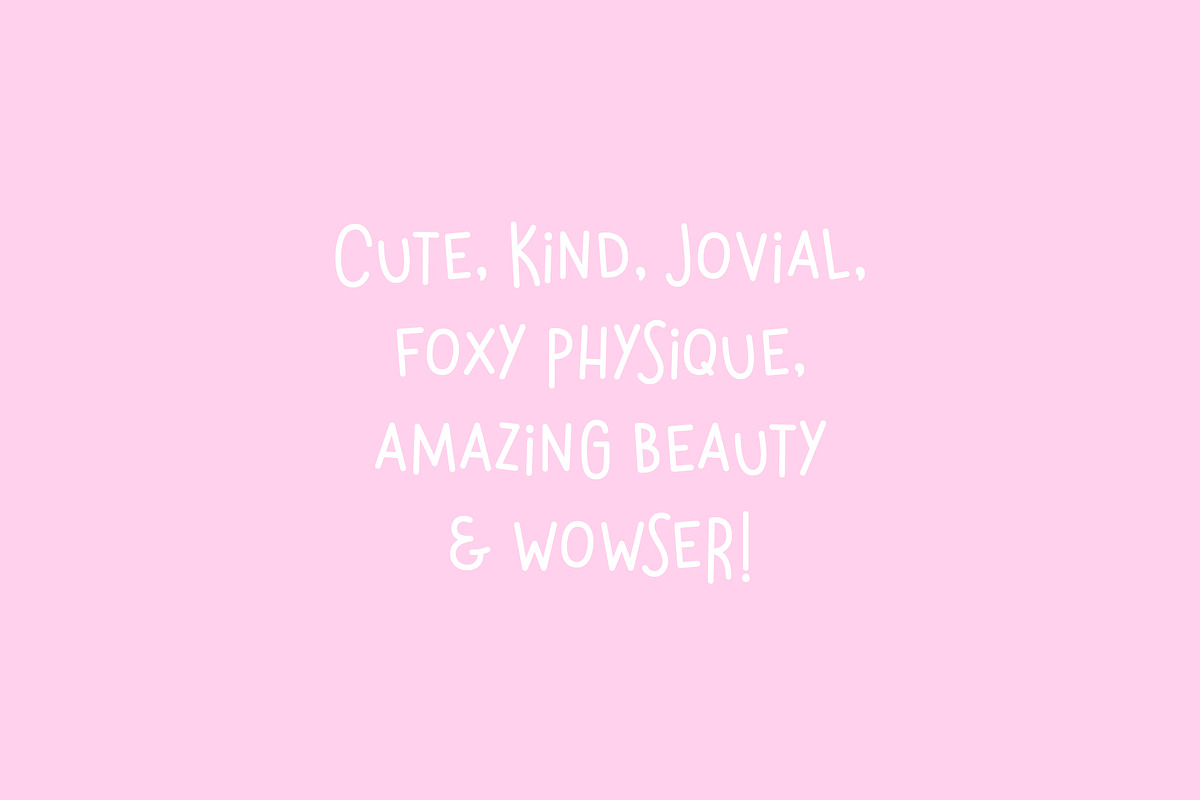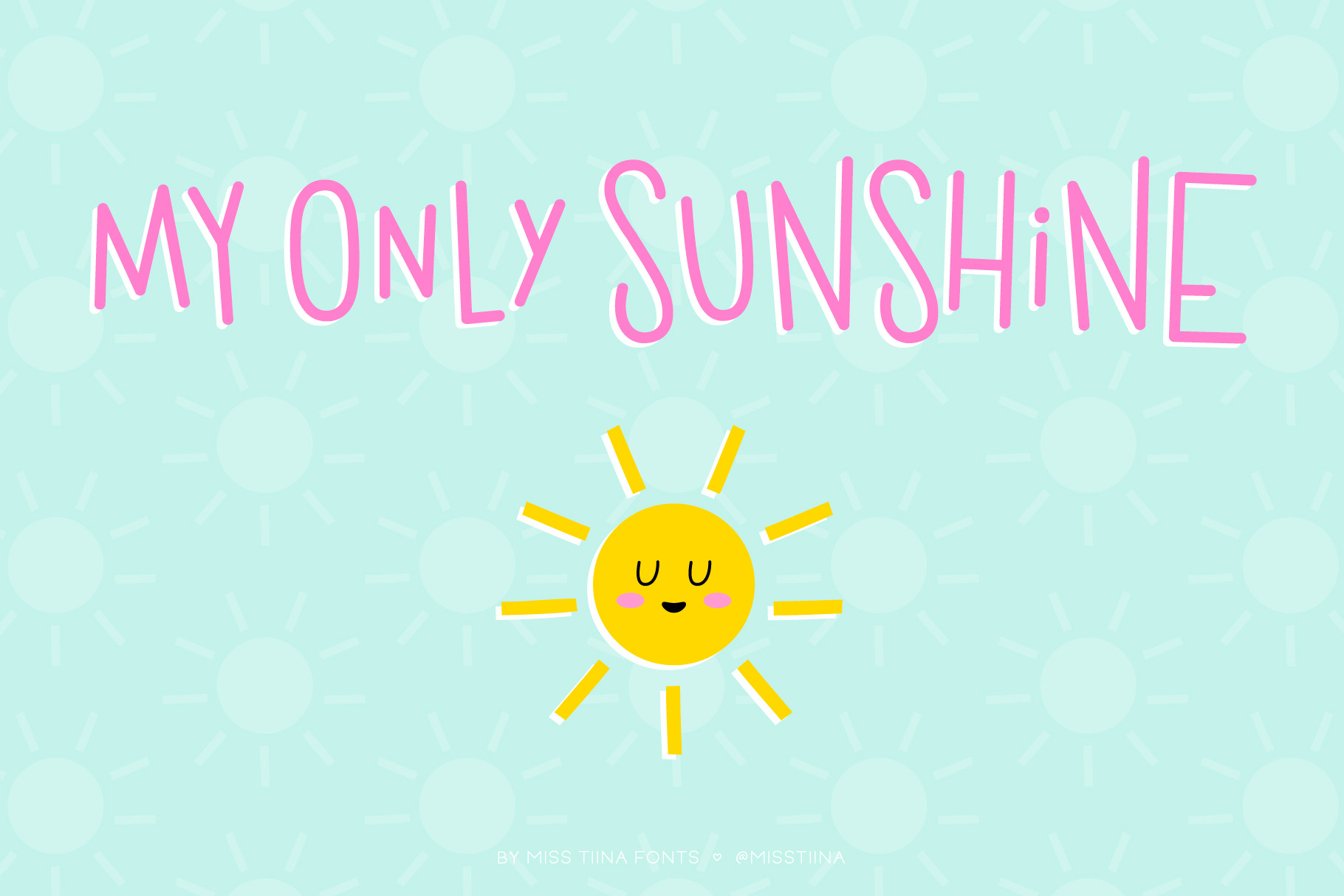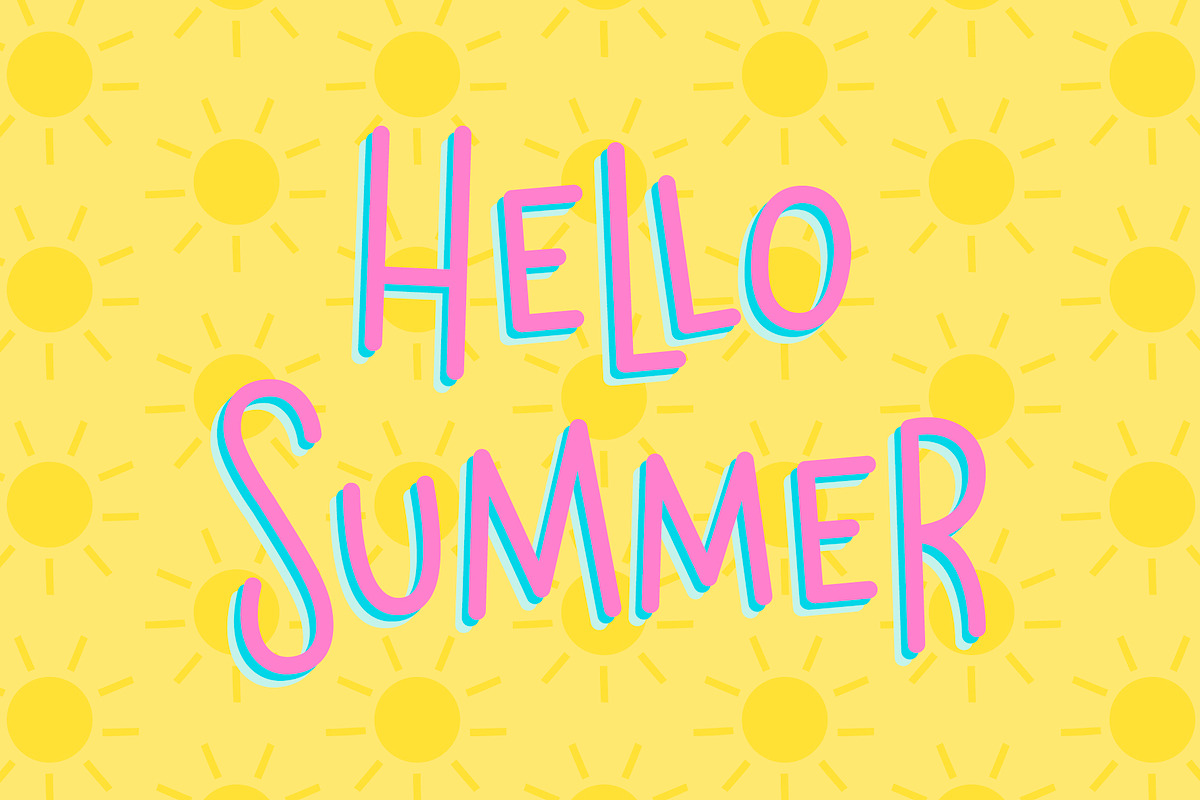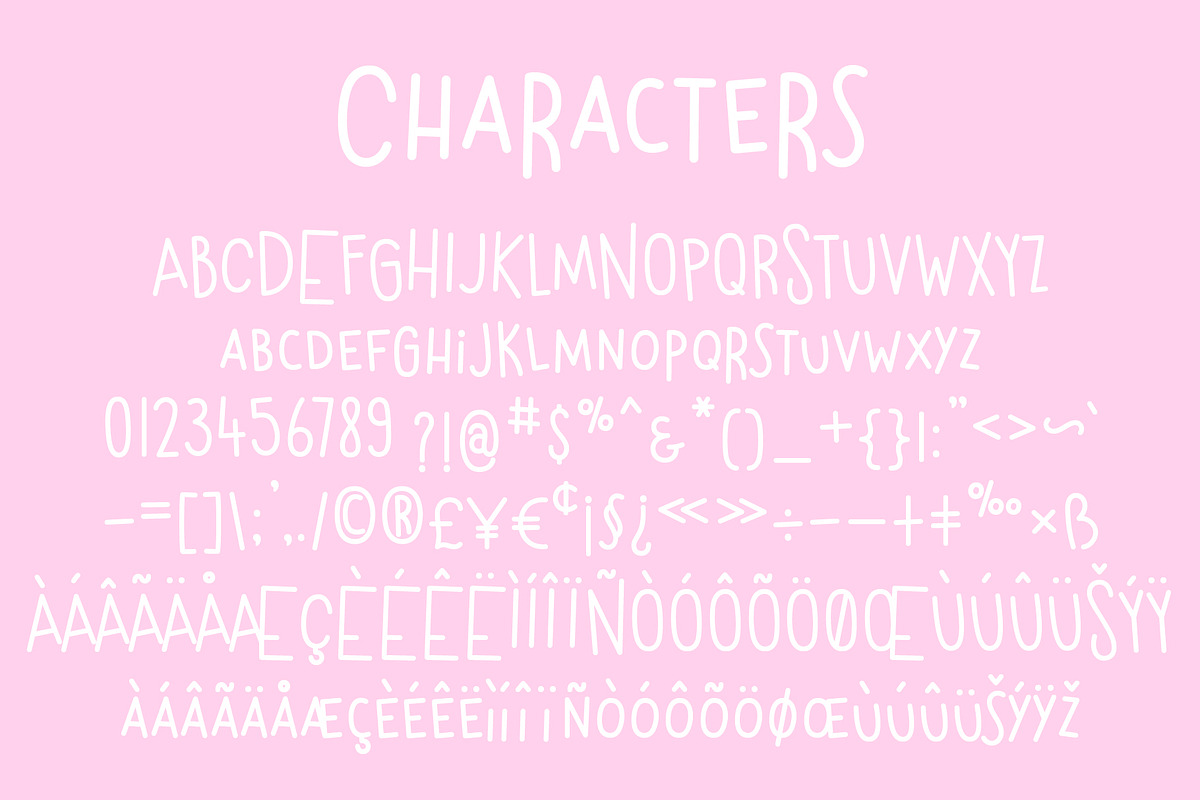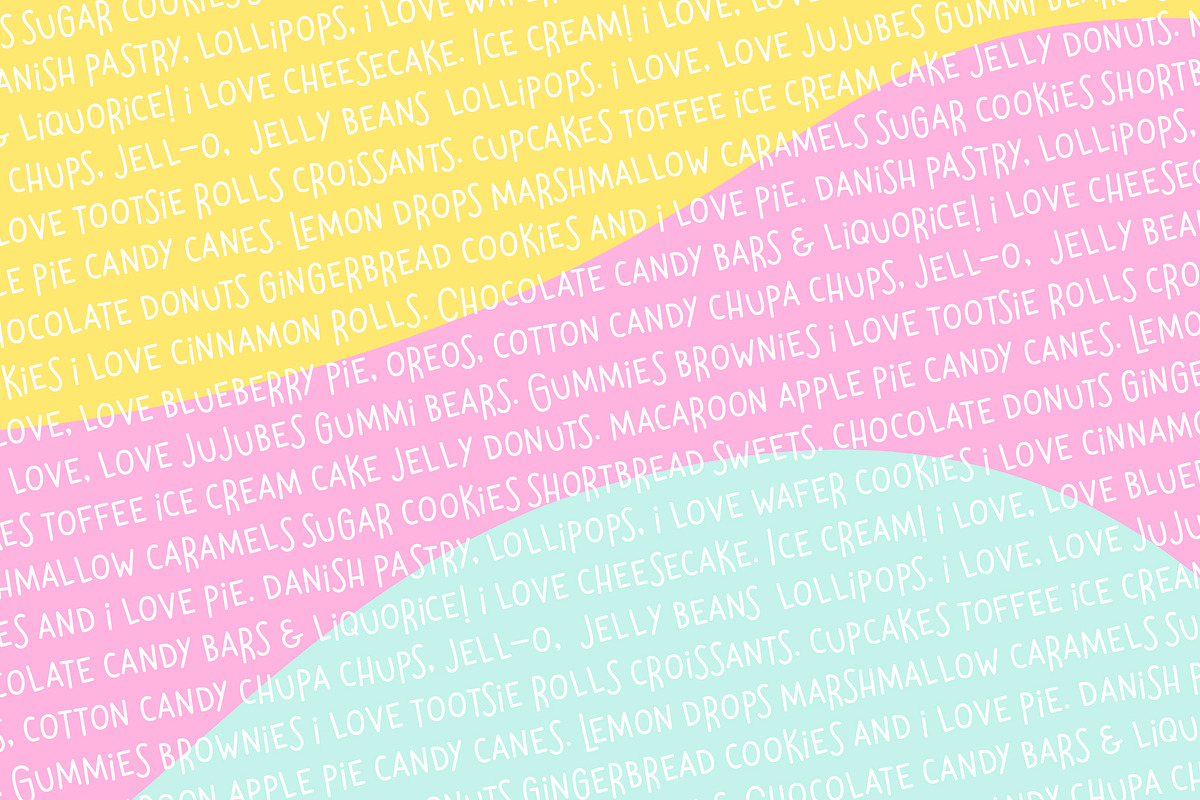
My Only Sunshine Font
My Only Sunshine is a super adorable and whimsical font great for children’s books, jotting notes, planners, and many other various projects. Use upper and lowercase together to create new looks!
UPDATED 4.2.23 - This font, originally from 2017 now has perfected lines, better kerning and multilingual characters!